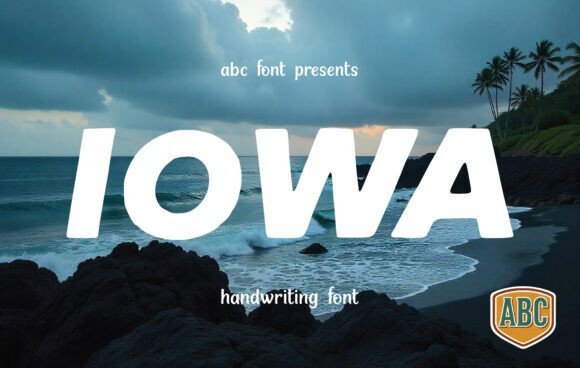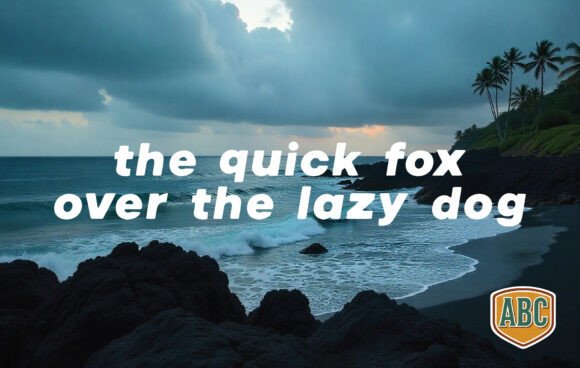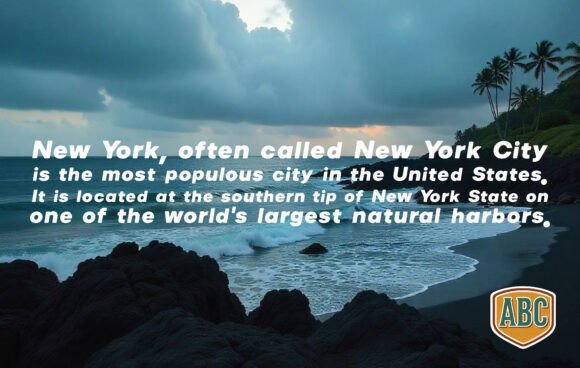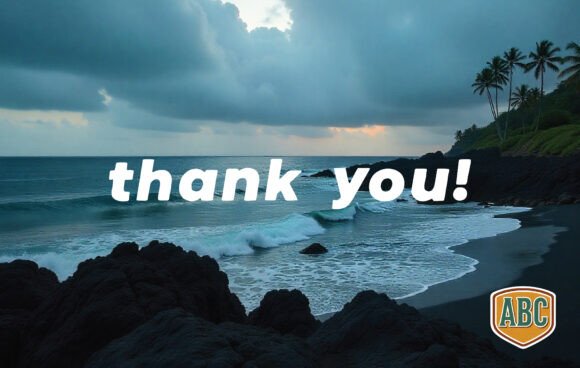
The Perfect Handwritten Touch: Discover the Beauty of Iowa Font
Have you ever sat at your desk, staring at a blank page, waiting for inspiration to strike? For designers, that moment of creativity can be the spark that sets a project ablaze. It’s the moment when the perfect font choice clicks, and everything falls into place. For many, that font is Iowa Font – a timeless, handwritten beauty that brings warmth and personality to any design.
Iowa Font is the perfect choice for creating eye-catching logos, branding, and quotes. Its unique and beautiful touch will make your design come alive. Whether you’re creating wedding stationery, journals, greeting cards, product packaging, or social media designs, Iowa Font is the perfect companion. Its versatility and charm make it a valuable asset for designers looking to add a personal touch to their work.
- Unique Characteristics: The Iowa font features a unique blend of modern and vintage elements, with a distinctive geometric feel and rounded edges.
Iowa Font Review
I recently had the chance to work with the Iowa Font, and I must say it’s a unique and interesting typeface. Here are my thoughts on what works well and what doesn’t.
- The Iowa Font has a clean and modern aesthetic that would work well for digital interfaces and websites.
- The font has a wide range of weights, from light to bold, which provides a lot of flexibility for designers.
- The font’s subtle rounded edges give it a friendly and approachable feel.
- The Iowa Font may not be the best choice for print materials, as it can appear too digital and lacking in texture.
- The font’s unique style may not appeal to everyone, and some users may find it too quirky or unconventional.
- The font’s performance on certain systems may be affected by its complexity, potentially leading to display issues.
Overall, the Iowa Font is a solid choice for designers looking for a modern and versatile typeface. While it may have some limitations, its clean lines and friendly feel make it a great option for digital projects. With careful consideration and a clear understanding of its strengths and weaknesses, the Iowa Font can be a valuable addition to any designer’s toolkit.
The Iowa Font is a versatile font that can be used in a variety of contexts, including:
- Restaurant menus and signage
- Food packaging and branding
- Agri-business and farm-related materials
- Outdoor advertising and signage
Alternatives to Iowa Font
Playfair Display is an elegant, high-end serif font suitable for luxury brands and high-end publications. It’s ideal for use in headings, titles, and other prominent text where a touch of sophistication is desired.
Comparison to Iowa Font: While both fonts are elegant and refined, Playfair Display has a more ornate and luxurious feel, whereas Iowa Font has a more rustic and vintage charm. Playfair Display is more suitable for formal and high-end designs, whereas Iowa Font is better suited for more casual and rustic designs.
Great Vibes is a modern script font with a relaxed, casual feel. It’s perfect for use in branding, packaging, and advertising where a friendly and approachable tone is desired.
Comparison to Iowa Font: Great Vibes has a more modern and relaxed feel compared to Iowa Font, which has a more vintage and rustic charm. Great Vibes is better suited for designs that require a friendly and approachable tone, whereas Iowa Font is better suited for designs that require a more rustic and vintage feel.